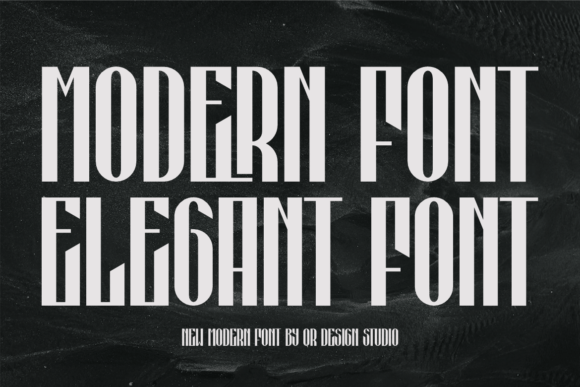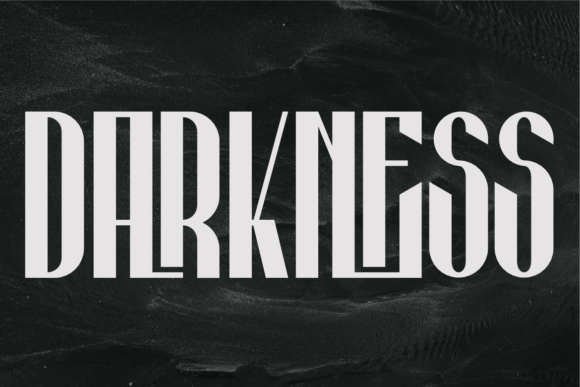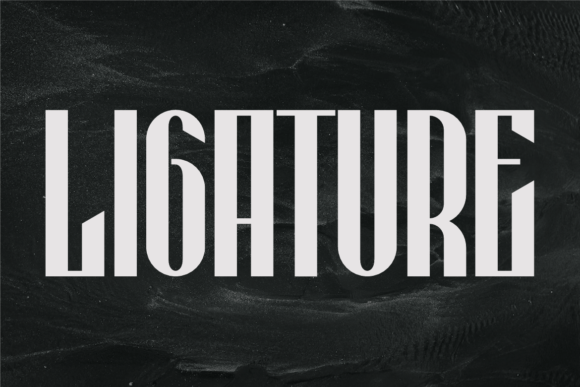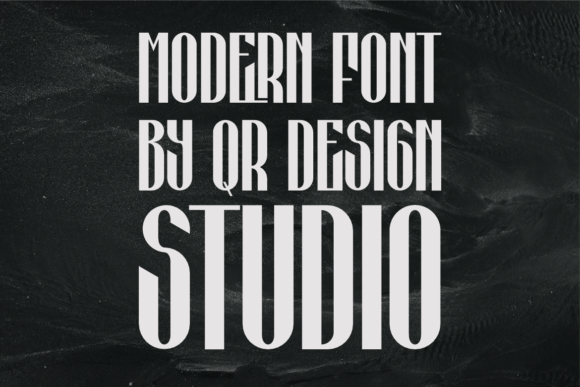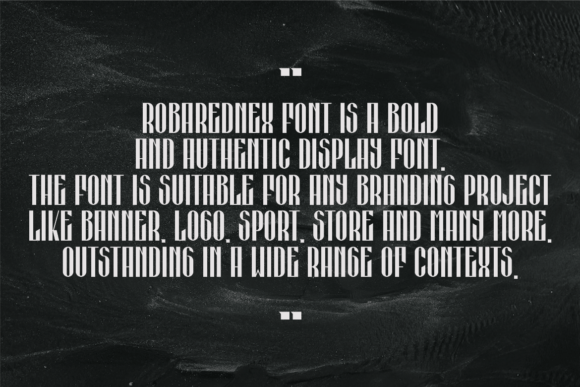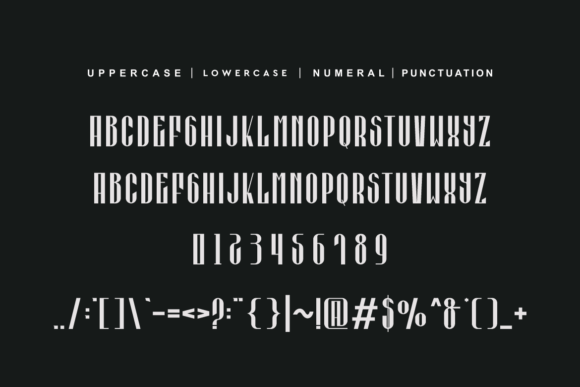
Introduction to Robarednex Font
Have you ever found yourself stuck on a creative project, searching for that perfect font to elevate your design and make it truly stand out? I know I have, and that’s exactly why I’m excited to introduce you to the Robarednex Font – a game-changing display font that’s about to become your new best friend.
Whether you’re working on a branding project, crafting a movie title, or designing a book cover, the Robarednex Font is the ultimate design resource. Its bold and authentic style is perfect for making a statement, and its high-quality design ensures that your creative project will be nothing short of impressive. Plus, with its transparent background, you can easily overlay your text on any image or background, giving you complete creative control.
Key Features of Robarednex Font
- High-quality design resource ideal for creative projects requiring a unique aesthetic.
- Features a transparent background, allowing for seamless integration into any design.
- Includes a range of glyphs and characters, making it suitable for a variety of applications.
- Designed with a high resolution of 300 DPI, ensuring crisp and clear text display.
- Perfect for graphic designers, digital artists, and anyone looking for a distinctive font to elevate their creative project.
Honest Review: Robarednex Font
I recently stumbled upon the Robarednex Font, and I must say, it’s been a game-changer for my creative projects. This font has been a valuable addition to my design resource collection.
- ✨ The font’s modern design aesthetic makes it perfect for futuristic and sci-fi themed projects.
- ✨ The high-quality design ensures that the font remains crisp and clear even at large font sizes.
- ✨ The transparent background option allows for seamless integration with any background image or color.
- ⚠️ The font’s limited character set might be a concern for those who need to use it for complex texts or languages.
Overall, I’m thoroughly impressed with the Robarednex Font. Its unique design and high-quality rendering make it a great choice for creative projects. While it may have some limitations, it’s definitely worth considering for those looking for a modern and futuristic font.
Common Use Cases for Robarednex Font
The Robarednex Font is a versatile design resource that can be used in a variety of creative projects, including branding, marketing materials, and graphic design. It’s also great for creating unique and eye-catching titles and headings.